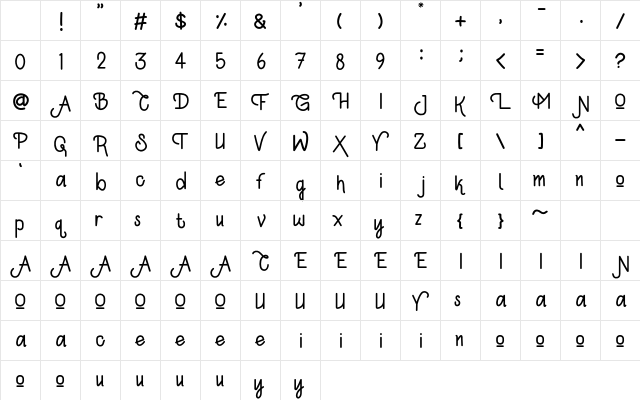
Complete Kylie Jeslyn Regular glyph index. Displaying only characters natively supported by Kylie Jeslyn Regular font.
Kylie Jeslyn is a composed and adaptable typeface that performs quietly and consistently across a wide range of design contexts.